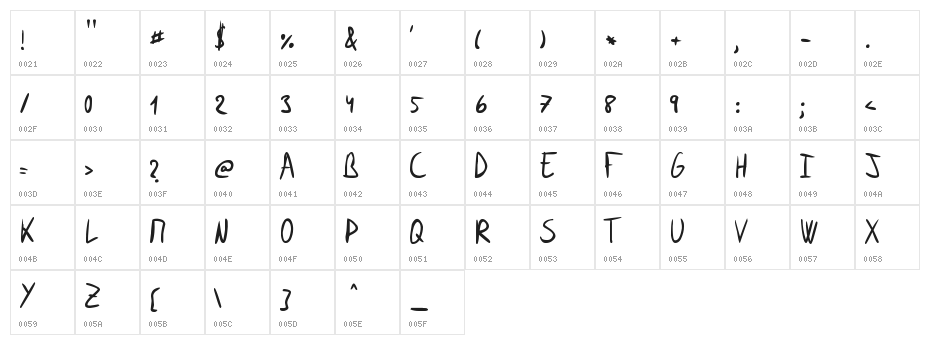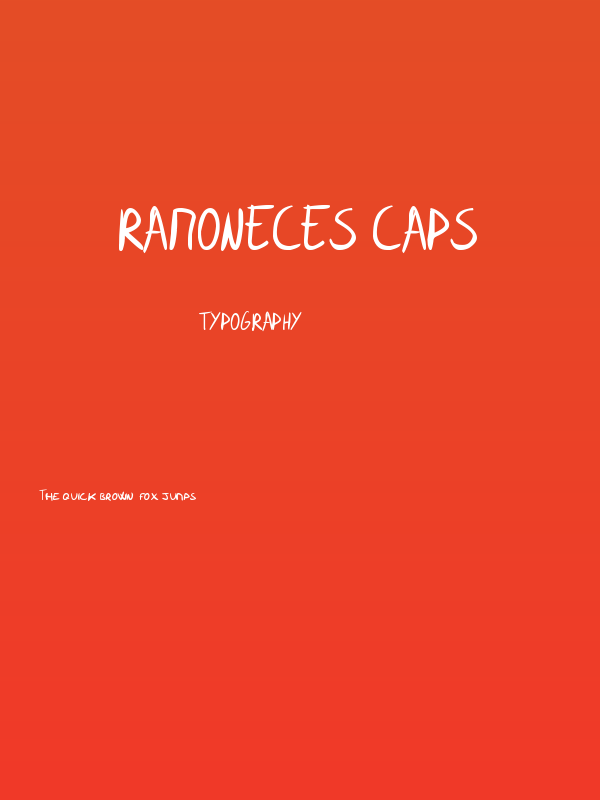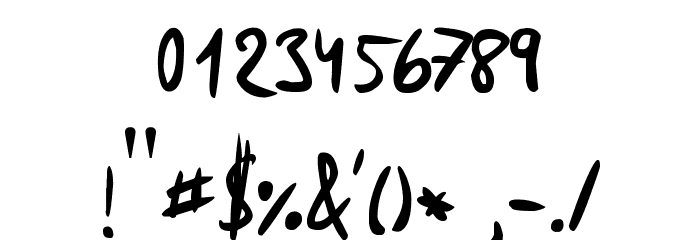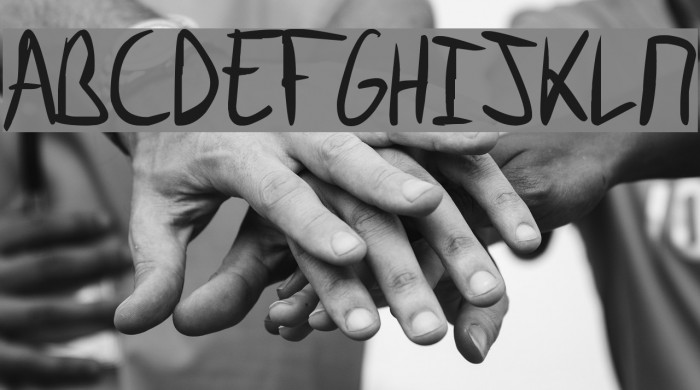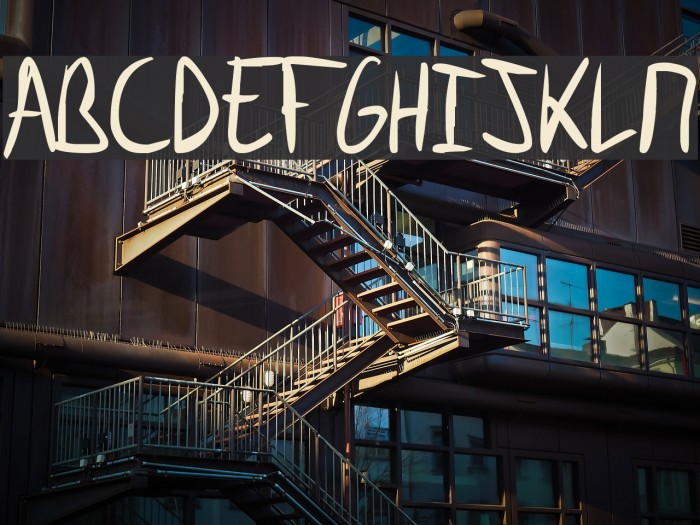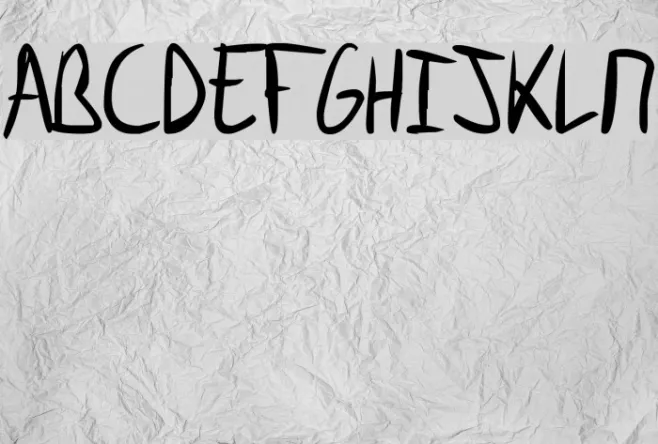
Ramoneces caps Font
Ramoneces caps Description
This font exhibits a bold, handwritten style with an energetic and informal vibe. The characters are slightly irregular, giving it a dynamic and spontaneous appearance. The uppercase and lowercase letters maintain a consistent flow, while the numbers and special characters complement the overall aesthetic. The strokes are thick and varied, contributing to a playful yet assertive look. This font is ideal for projects that require a personal touch or a sense of creativity and freedom.
| Proposed Projects | Perfect for posters, album covers, branding for creative industries, and any project needing a personal, dynamic touch. |